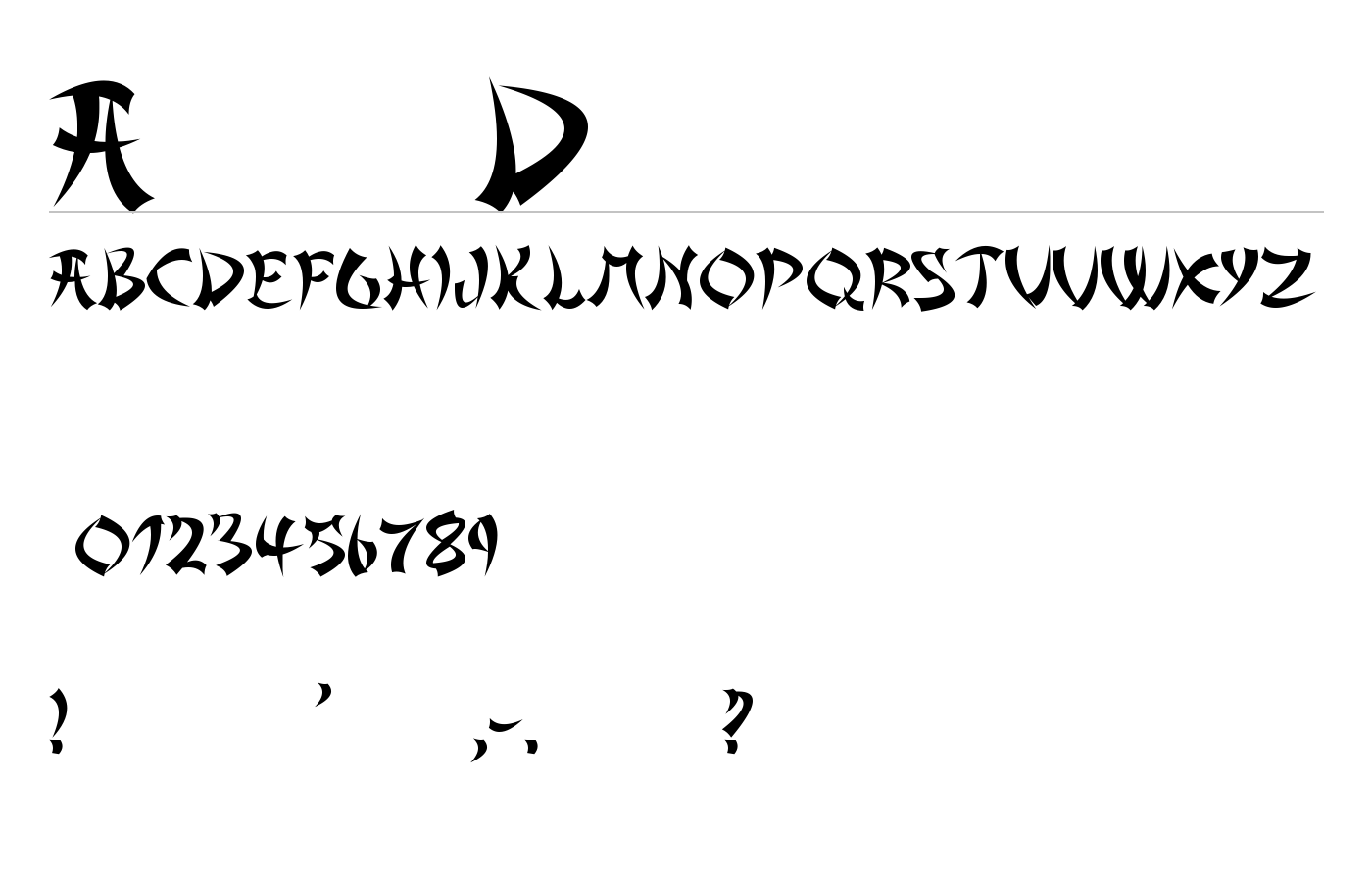
Asian Delight is a decorative display font with sharp, dramatic strokes and a bold, angular style reminiscent of traditional Asian calligraphy. Its unique letterforms convey a sense of dynamism and cultural flair, making it ideal for eye-catching headlines, logos, and branding that seeks to evoke an exotic or artistic atmosphere. This font works best in creative projects that benefit from a strong, stylized visual impact rather than long text passages.
Asian Delight Font